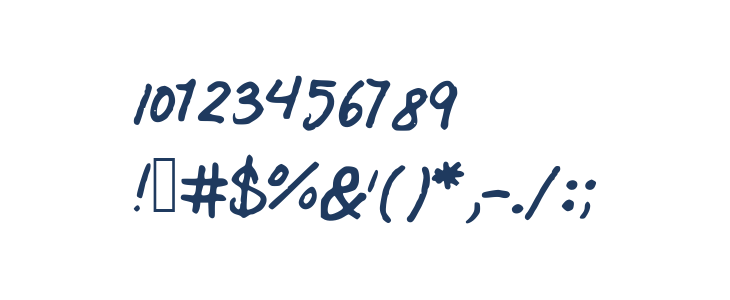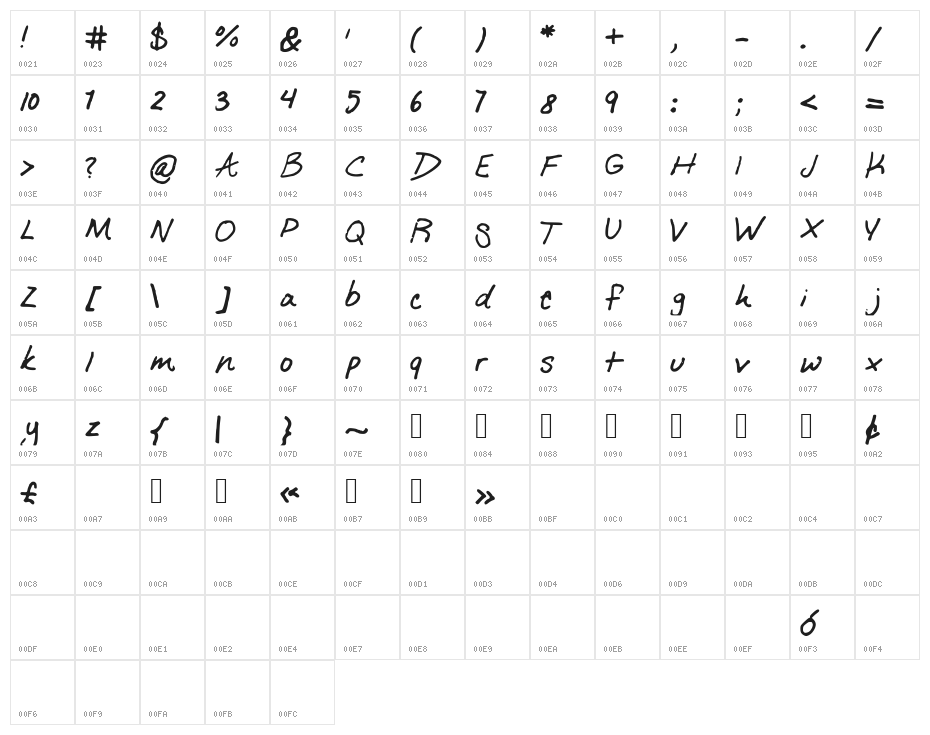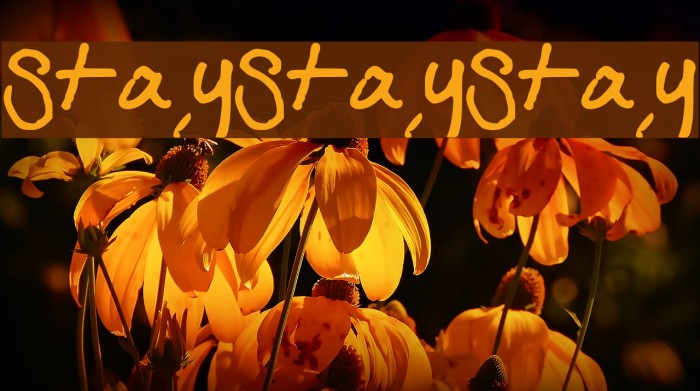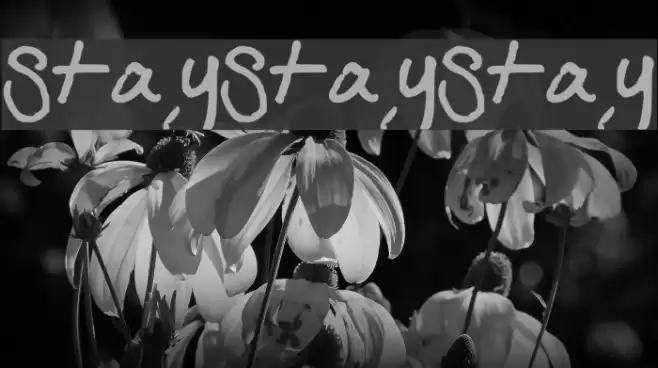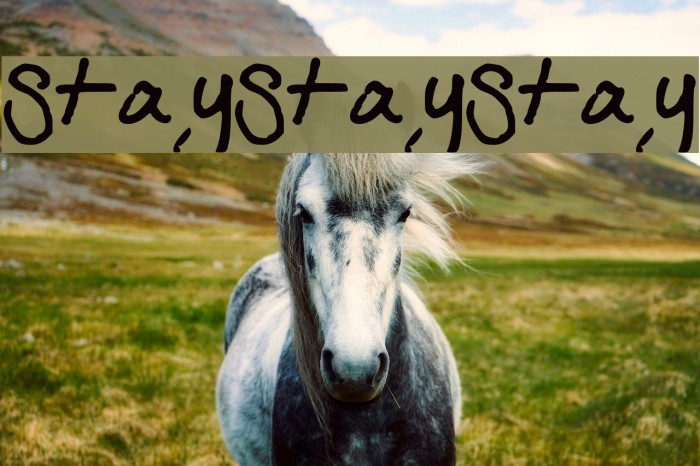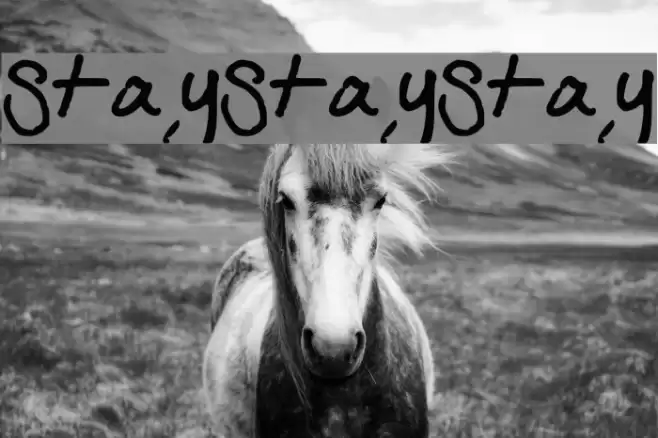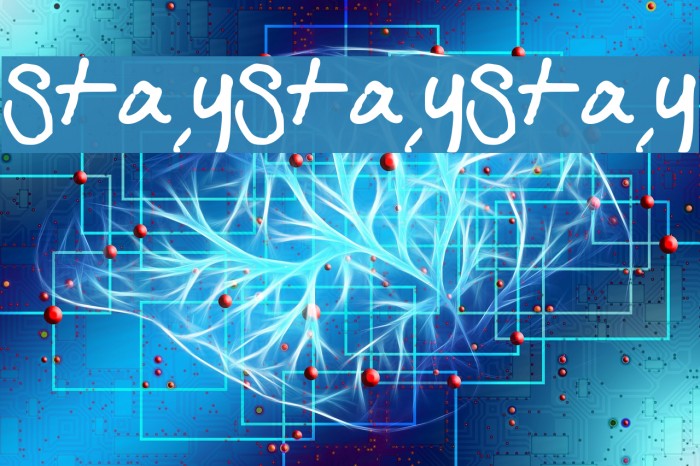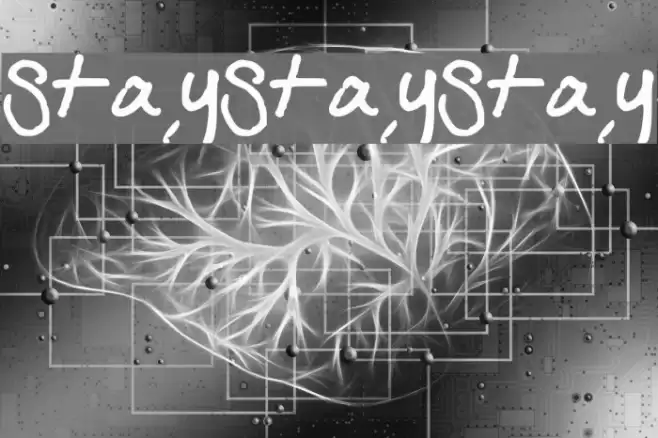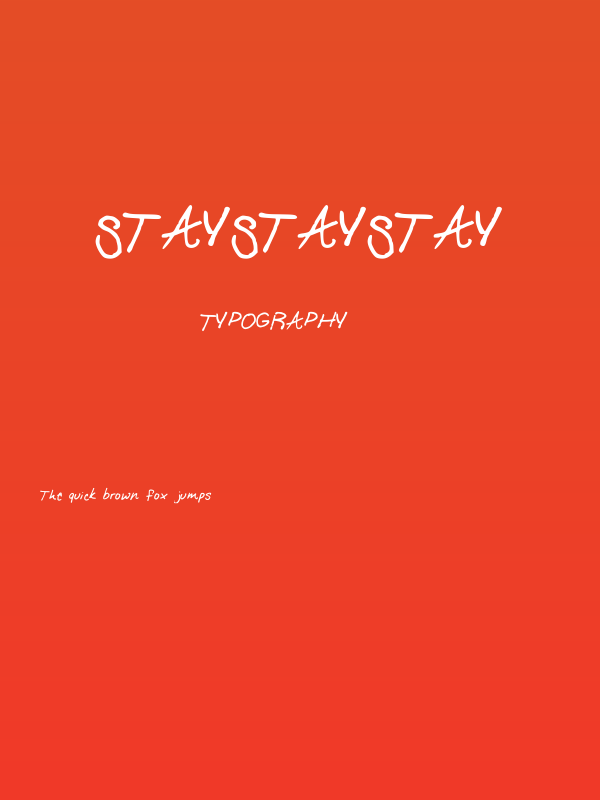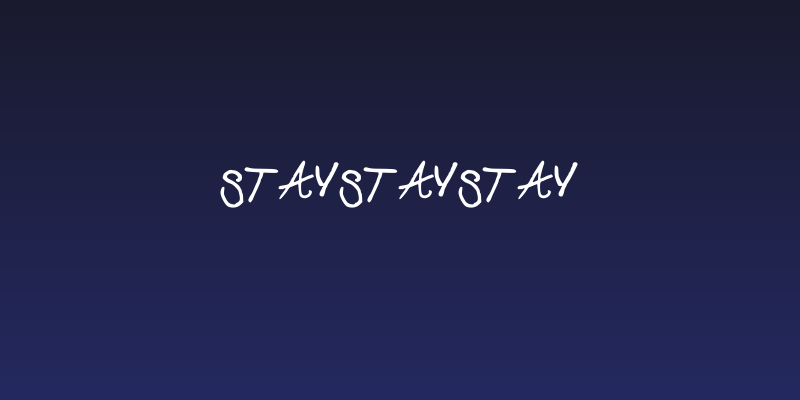
StayStayStay Font
StayStayStay Description
This font exhibits a casual, handwritten style with a natural flow and slight slant, giving it an informal and personal touch. The characters are crafted with a medium stroke width, providing a balanced appearance that is neither too light nor too bold. The uppercase letters maintain a consistent height, while the lowercase letters show a playful variation in size and baseline alignment, enhancing its handwritten charm. The numerals and special characters are clearly defined, matching the overall style of the alphabet. This font's organic and approachable feel makes it suitable for projects that require a personal or creative touch.
| Use Case | Logos, Headlines, Informal text |
| Proposed Projects | Ideal for personal invitations, greeting cards, creative posters, and informal branding. |